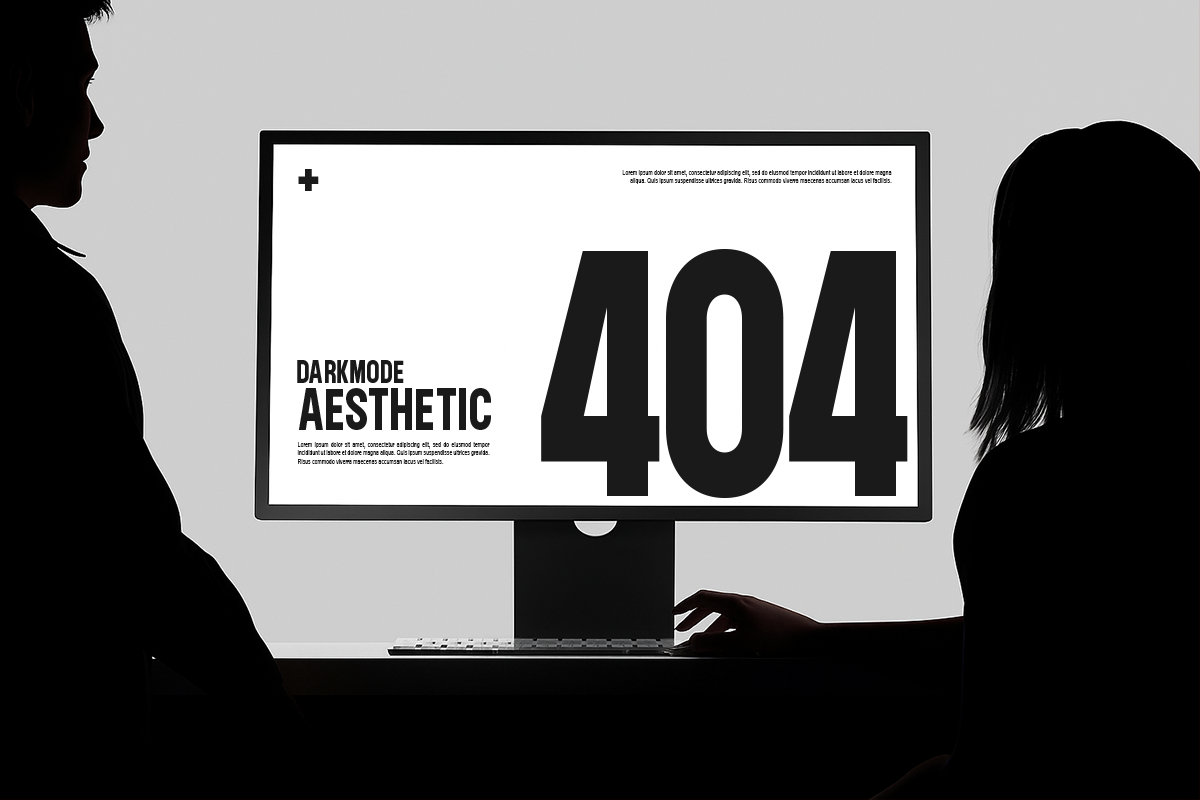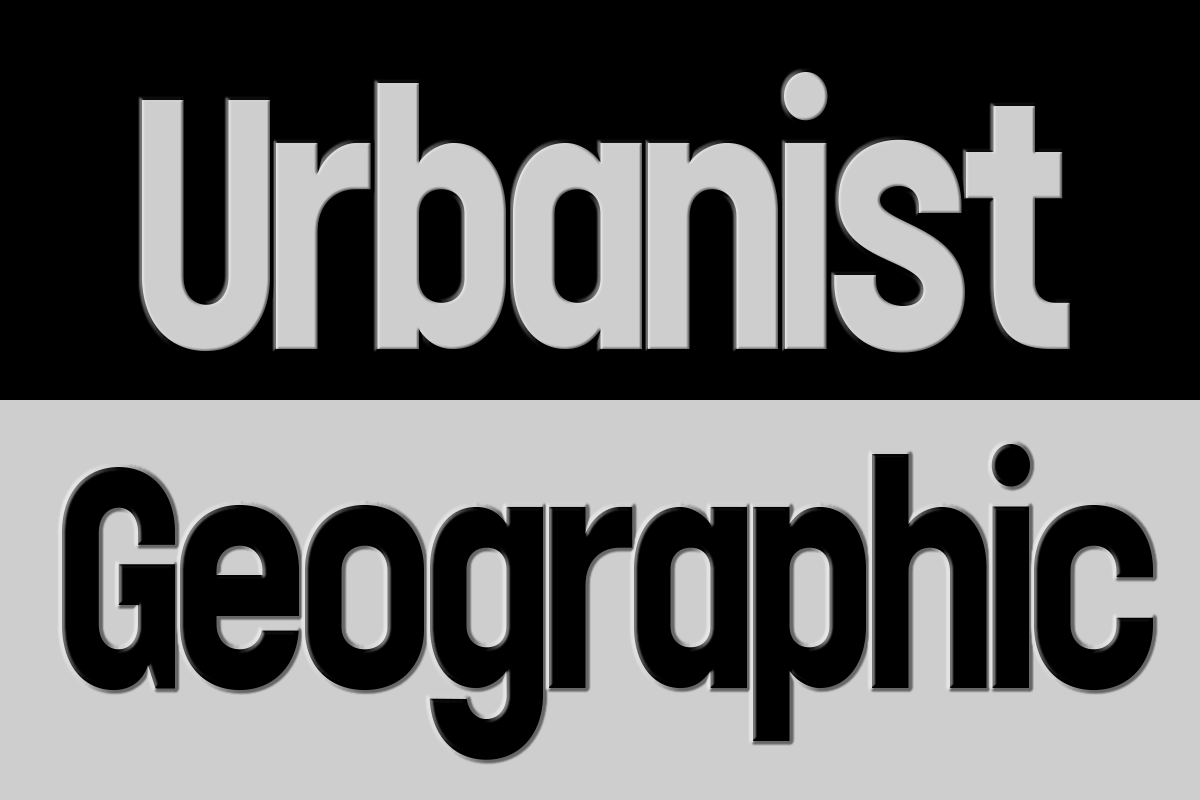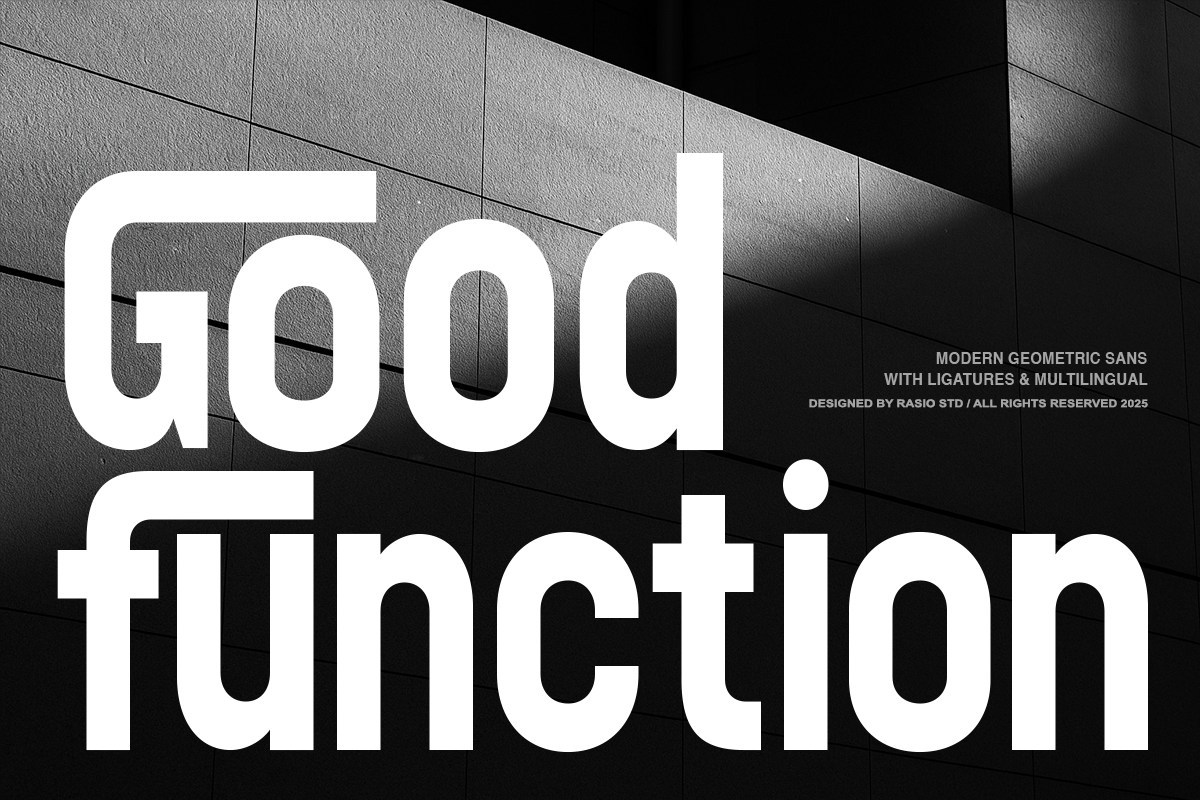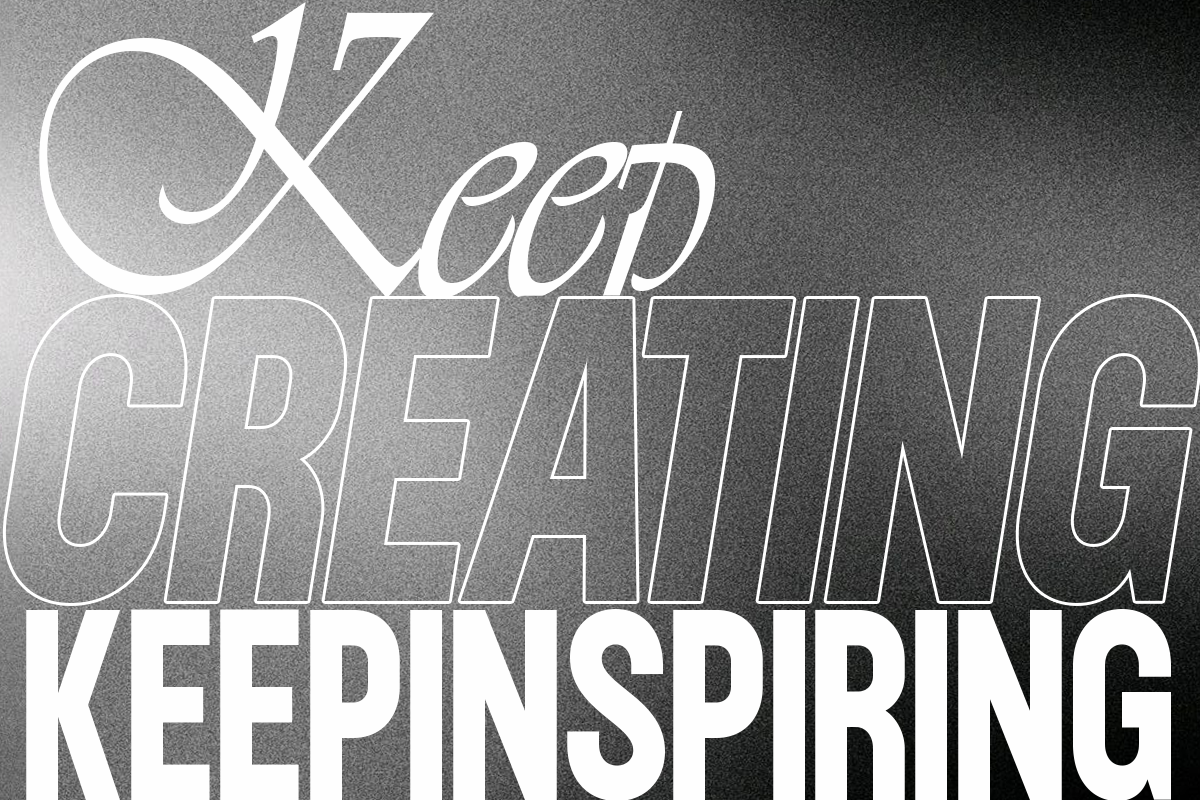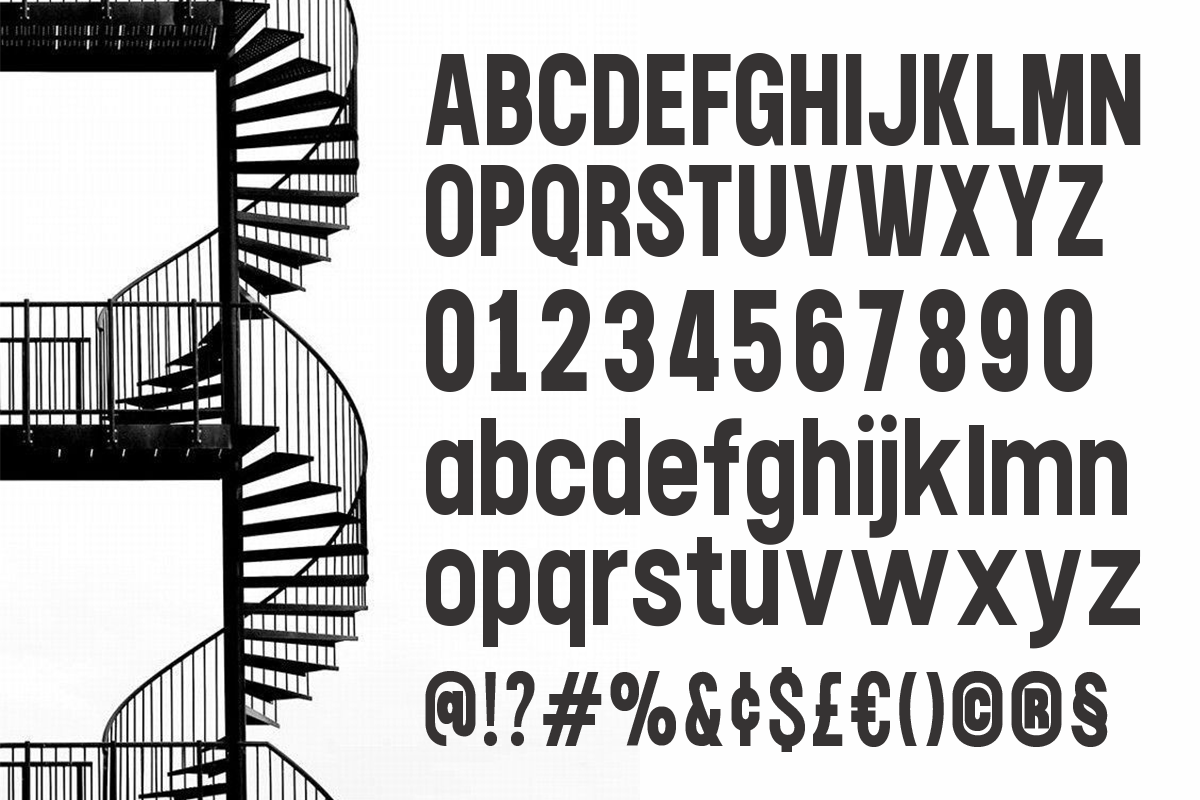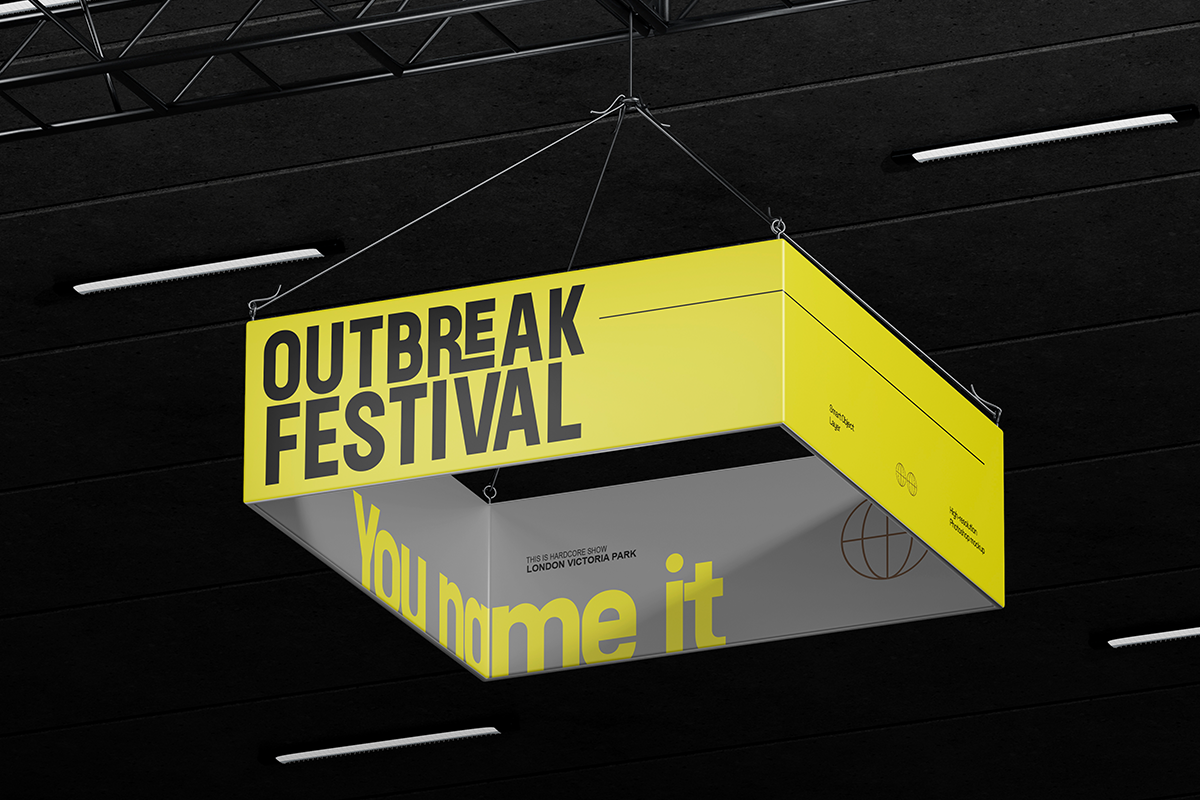
Good Function Geometric Sans Font
Good Function geometric sans font showcases the perfect fusion of modern precision and architectural balance. Its clean geometry, smooth curvature, and proportional structure reflect clarity, efficiency, and timeless functionality. This font captures the essence of minimalism while maintaining strong legibility for both digital and print media. Ideal for professional branding, editorial layouts, and tech-forward projects, Good Function delivers a confident and versatile visual presence that enhances every creative composition.
Relevance and Use Cases is perfect for corporate branding, editorial design, technology startups, web interfaces, app layouts, modern advertising, architecture portfolios, minimalist posters, and professional packaging projects that demand structural precision and clean modern aesthetics.
- Modern geometric sans with bold and structured letterforms
- Clean circular shapes combined with strong vertical and horizontal strokes
- Minimal contrast for a solid and contemporary visual appearance
- Subtle rounded corners adding a friendly yet professional tone
- Optimized spacing for strong readability in both display and large text
- Modern brand identity with a bold and structured visual tone
- UI/UX design for digital products, apps, and tech interfaces
- Logo design with clean geometric and contemporary character
- Tech branding, startups, and innovative business visuals
- Social media graphics with strong and modern typography
Good Function bold, clean, and confidently modern